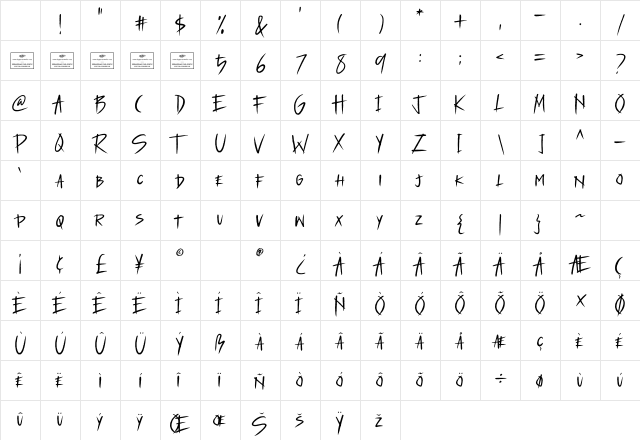
Scary Friday carries an unsettling edge - its distorted letterforms are built to unsettle, perfectly suited to horror, Halloween, and dark creative work.
Font Pairing: Pair with a clean neutral sans-serif for body copy to let Scary Friday's character lead without overwhelming the composition.
Pro Tip: Use Scary Friday at larger display sizes for maximum impact. Consider generous tracking to let the disturbing character of each letterform breathe.